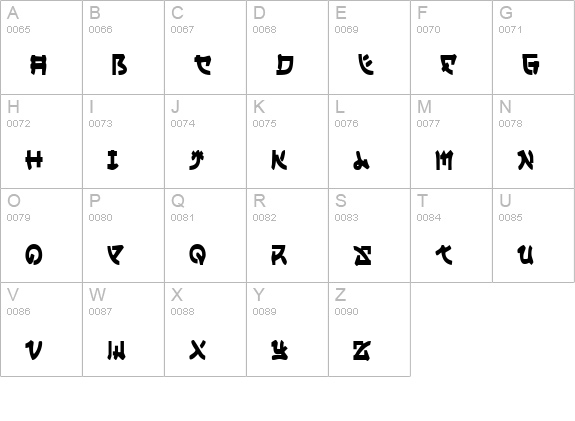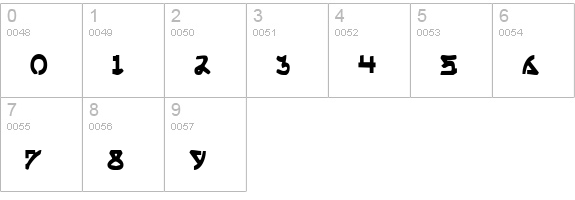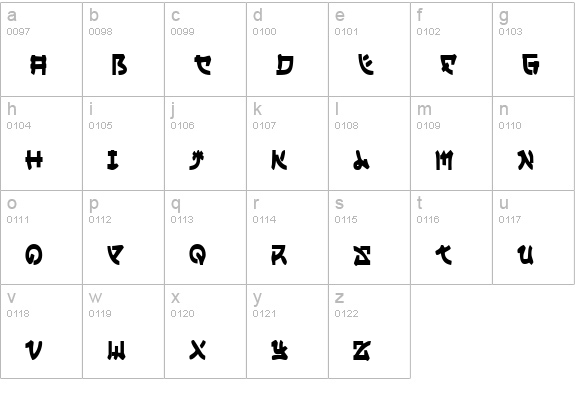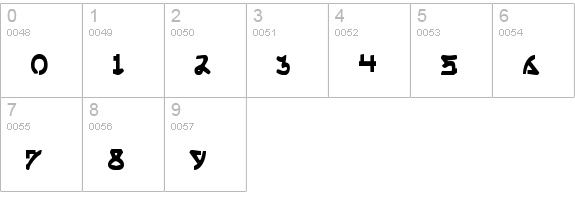
Yama Moto Condensed Font Details
Yama Moto Condensed is a distinctive, condensed-width variant in the Yama typeface family \xE2\x80\x94 well suited to design and typography projects.
Introducing Yama Moto Condensed font, a sleek and modern typeface designed to make a bold statement. This condensed font features clean lines and sharp edges, giving it a sophisticated and contemporary look. Perfect for a variety of design projects, from branding to advertising to web design, Yama Moto Condensed is sure to make your text stand out. The best part? Yama Moto Condensed font is available for free download at FontsMarket.com. Whether you're a graphic designer, a creative entrepreneur, or just looking to add a touch of elegance to your projects, this versatile font is a must-have in your font library. Download Yama Moto Condensed today and elevate your designs with its stylish and professional aesthetic.